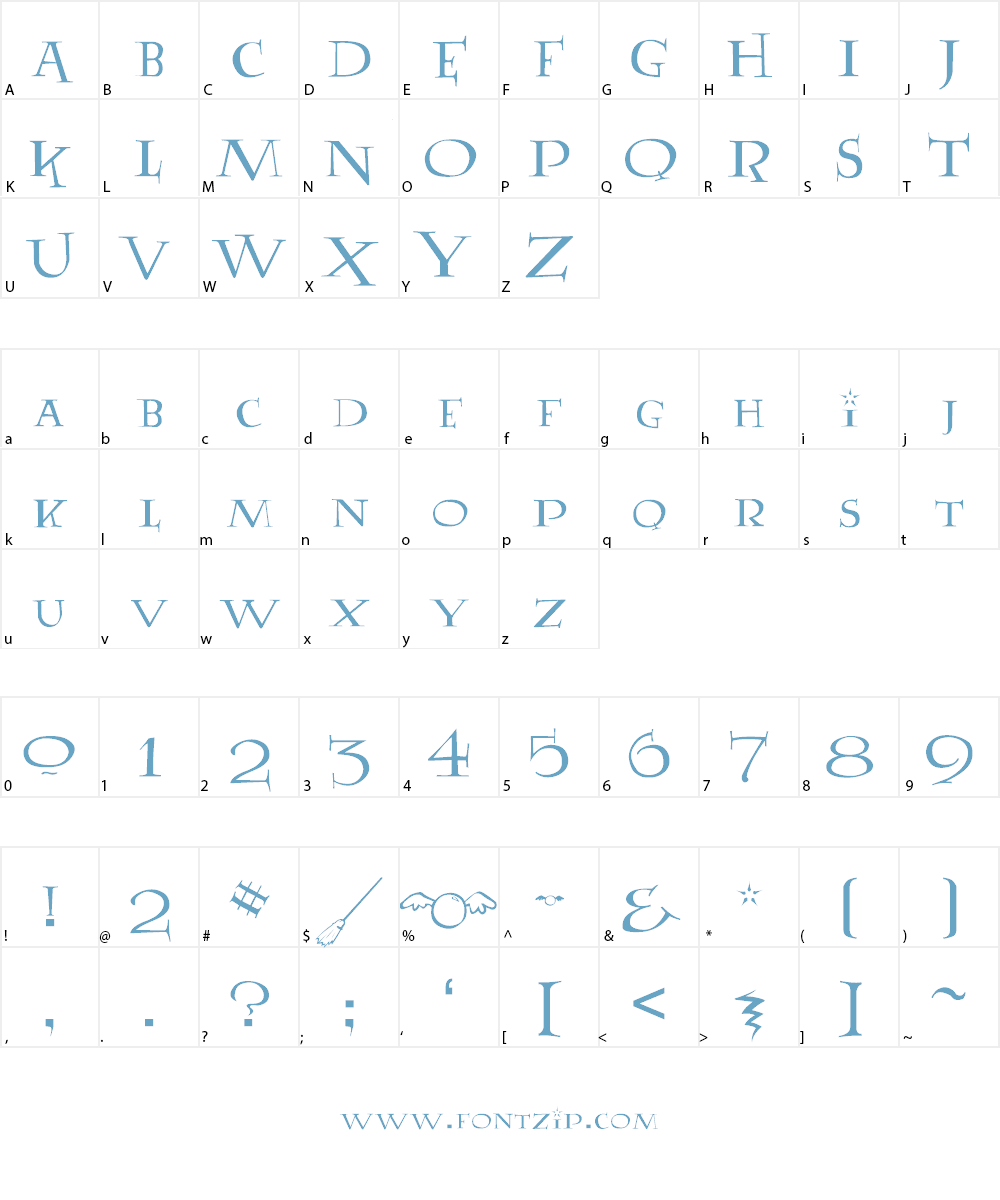
Lumos (v.1) is a freeware font inspired by the Harry Potter books. I made this font after long unsuccessful searches for the display font used in the US editions of Harry Potter. If you're interested in the official version, I found out that it's a font by Marcus Burlile called "Ablefont" in The Many Faces of Arnold - Lookalike Fonts, an enlightening article by Kevin Andrew Murphy for TBP!
You can use it in CAPS ONLY for a more true-to-the-book look, or use the 'small-caps' (lowercase) letters which have a few quirky variations. The caps and small caps are complete, digits 0-9, and most of the punctuation marks are included, too. Don't forget to be on the lookout for the hidden dingbats -- I think I put in six. If you look really hard, you might find the super-tiny golden snitch! :-)